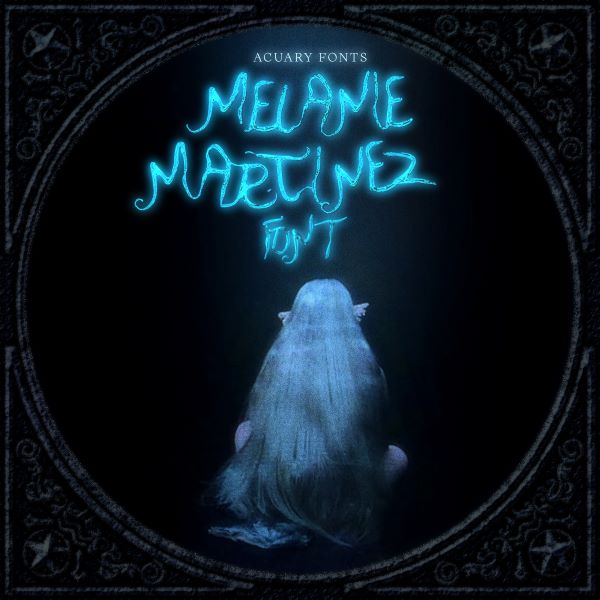
Melanie Martinez Font
Melanie Martinez by Zmeic is a free Halloween display font inspired by the haunting, pastel-goth aesthetic of the singer-songwriter — a freaky font that blends childlike innocence with dark undercurrents in a way that feels genuinely distinctive. Free for personal use.